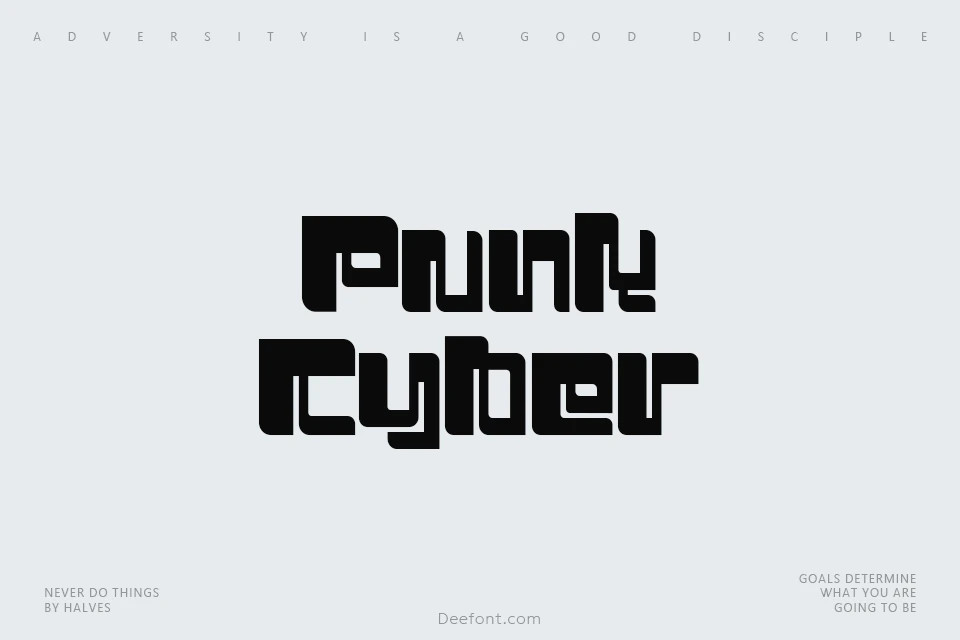
Punk Cyber Font
Punk Cyber Font is a bold and futuristic typeface inspired by the Y2K aesthetic, blending retro-futurism with a modern edge. Designed by Dharmas Studio, it features sharp, angular shapes and neon-like styling that evoke the cyberpunk era and early 2000s digital culture. With six distinct styles, Punk Cyber is versatile for creative projects such as branding, posters, album covers, and digital art. Its vibrant and dynamic appearance makes it perfect for designs seeking to capture a nostalgic yet forward-thinking vibe. Whether used for headlines or decorative text, Punk Cyber adds a striking, rebellious energy to any visual composition.